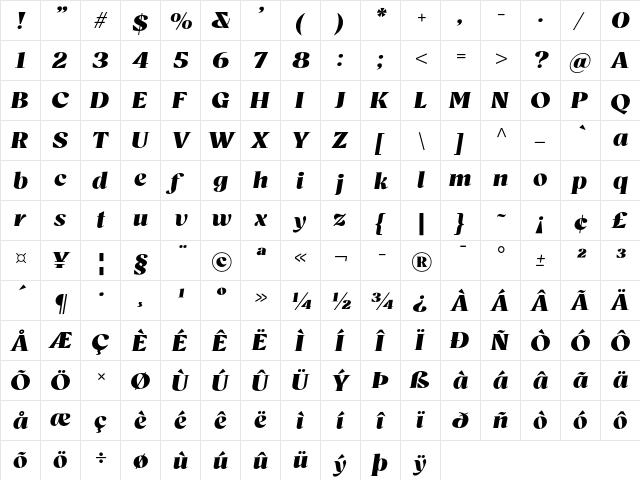
Bovino Trial Black Ita Italic
Design Context for Bovino Trial Black Ita Typeface
Bovino Trial Black Ita is a composed and adaptable typeface that performs quietly and consistently across a wide range of design contexts. The slanted form adds forward momentum and visual energy.
Pro Tip: Try Bovino Trial Black Ita for annotation and caption copy alongside an upright companion — the contrast in angle creates a dynamic but ordered typographic system.